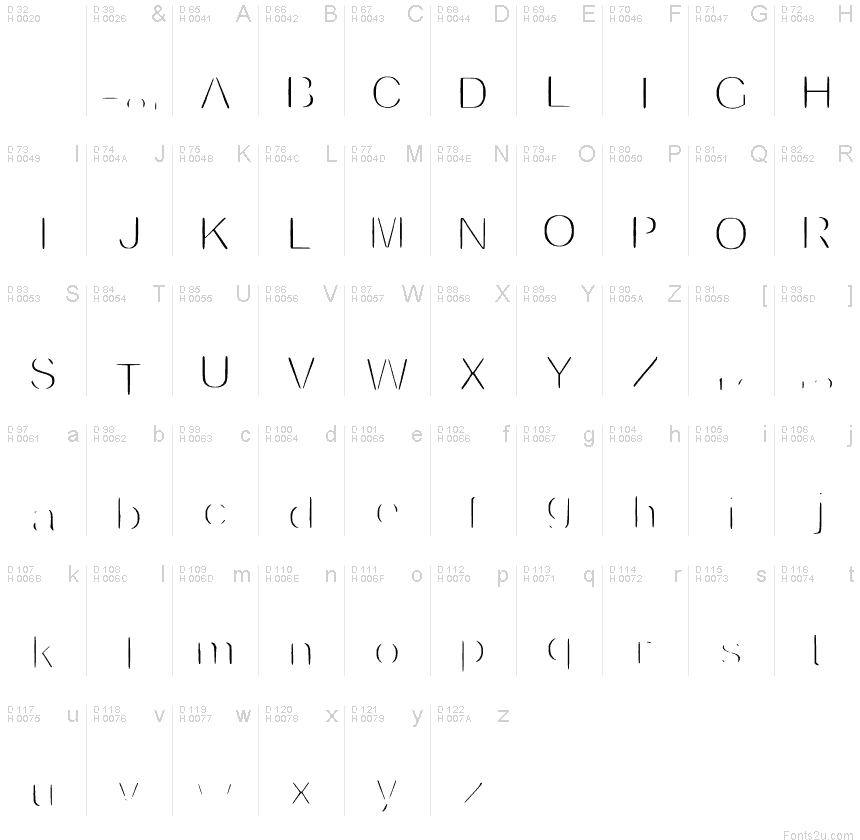
A Comprehensive Guide To Invisible Fonts In 2023
What are Invisible Fonts?
Invisible fonts are fonts that allow text to be rendered without actually seeing it. This means that the text appears to be invisible to the human eye, yet still readable when the correct font is used. Invisible fonts are typically used for decorative purposes, such as in advertising or marketing materials. They are also commonly used in web design and other digital media formats.
Invisible fonts work by using special characters and symbols that are not visible to the naked eye. These characters are usually white in color, so they blend into the background of the page or digital media. It is important to note that invisible fonts are not actually invisible, but rather are very difficult to detect even if you look closely.
The Benefits of Invisible Fonts
There are several benefits to using invisible fonts in digital media. The most obvious benefit is that it allows for more creative freedom when designing a website or other digital media. By using invisible fonts, designers are able to create a more visually appealing layout without having to worry about the text being visible.
Invisible fonts also help to reduce the amount of clutter on a page. This is especially true if the website or other media has a lot of text. By using invisible fonts, designers are able to create a more organized and appealing look, which in turn can improve user experience.
In addition to these benefits, invisible fonts can also help to improve search engine optimization (SEO). Since search engine algorithms cannot detect invisible fonts, they will not count them in their rankings. This means that websites and other digital media that use invisible fonts are more likely to rank higher in search engine results.
How to Use Invisible Fonts
Once the font is installed, it can be used just like any other font. The text can be typed and formatted in the same way as normal text. The only difference is that the text will not be visible to the human eye. It is important to note that invisible fonts are not always compatible with all types of software, so it is important to test the font before using it on any projects.
Common Uses of Invisible Fonts
Invisible fonts are commonly used in a variety of digital media formats. They are often used in web design, as they allow for a more creative layout without having to worry about the text being visible. They are also often used in advertising and marketing materials, as they allow for more creative freedom when creating promotional materials.
Invisible fonts are also commonly used in other types of media, such as video games. By using invisible fonts, developers are able to create a more immersive experience for the player without having to worry about the text detracting from the game experience.
Invisible fonts are a great way to add a creative touch to any digital media project. They allow for more creative freedom and help to reduce clutter on a page. They are also beneficial for SEO purposes, as they are not detectable by search engine algorithms. For these reasons, invisible fonts are a great option for any digital media project.